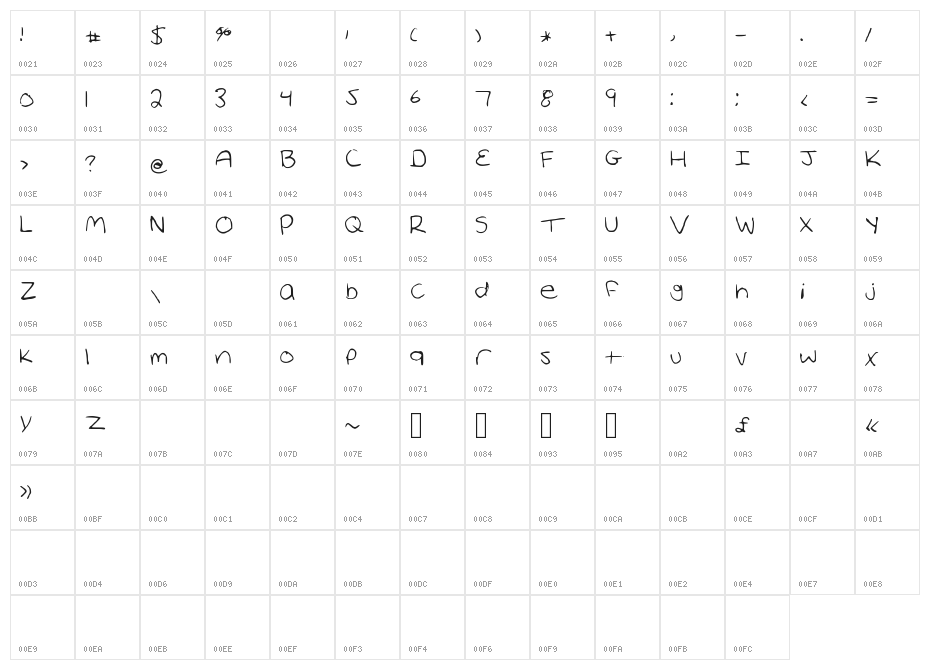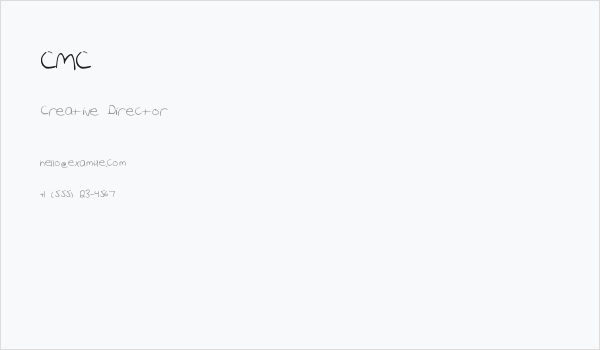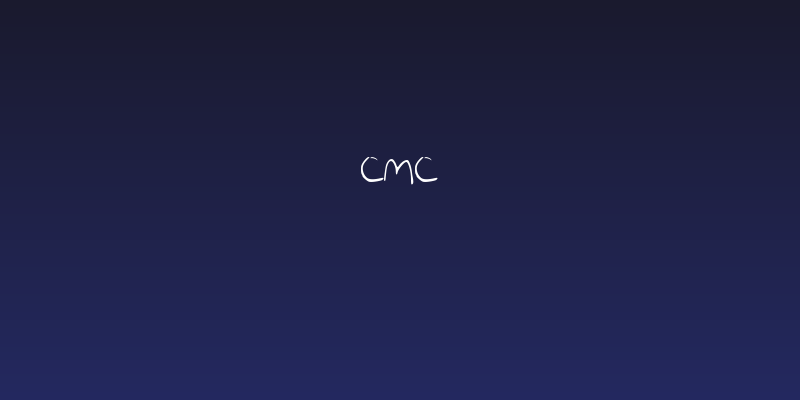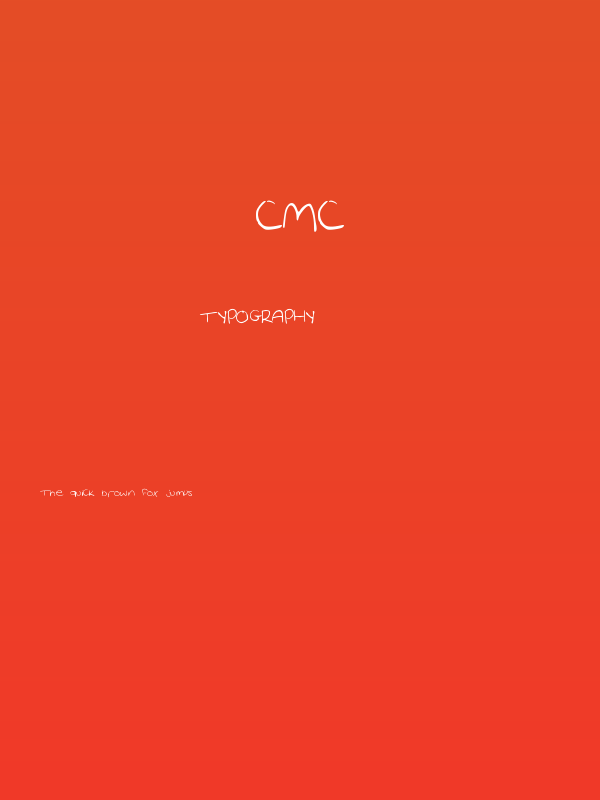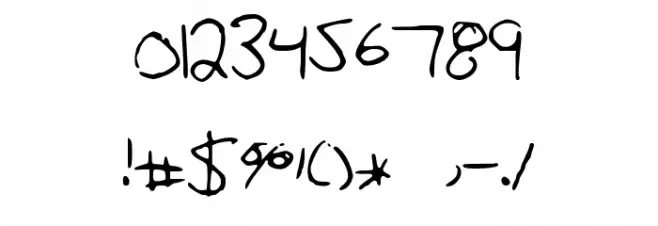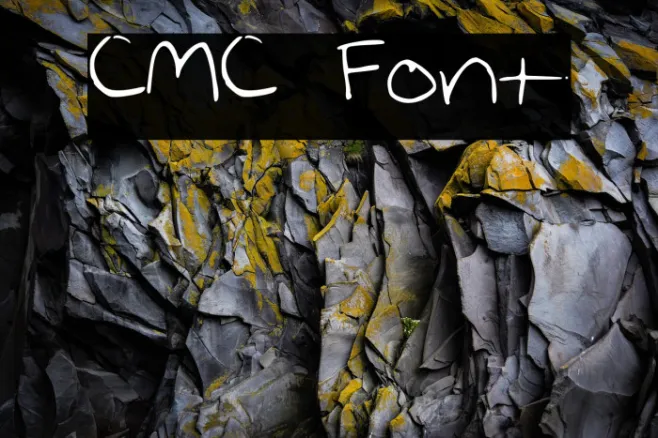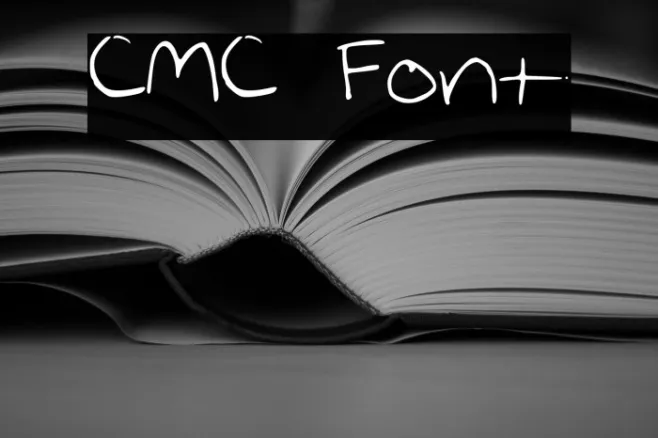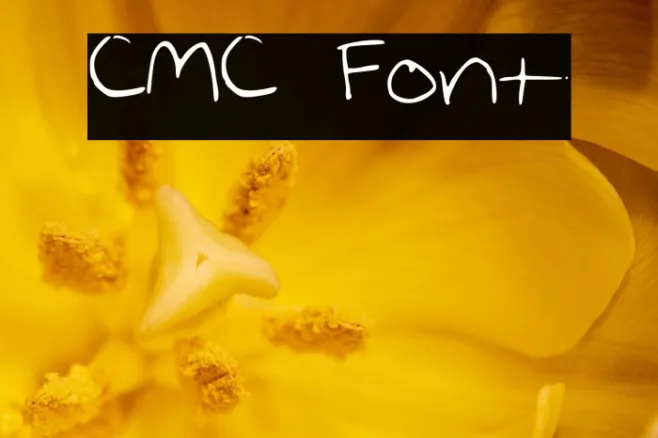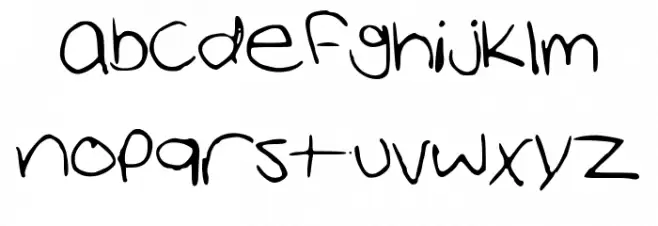
CMC Font
CMC Description
This font exudes a playful and casual handwritten style, characterized by its irregular, organic strokes that mimic the natural flow of handwriting. The letters are slightly uneven, adding to its charm and authenticity. The font maintains a consistent line weight throughout, giving it a uniform appearance despite its informal style. It is highly legible, making it suitable for both small and large text sizes. The numbers and special characters follow the same playful aesthetic, ensuring a cohesive look across all text elements.
CMC UPPERCASE
CMC LOWERCASE
CMC OTHER CHARS
| Use Case | Headlines, Informal text, Personal projects |
| Proposed Projects | Ideal for children's books, greeting cards, personal blogs, and informal invitations. |